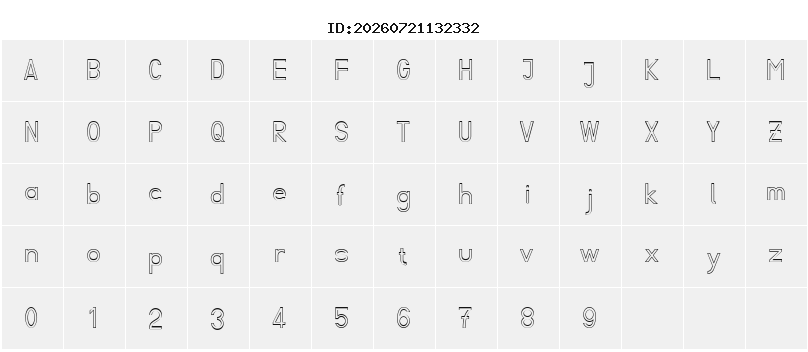
• Font Name: Fibel Sued Kontur
• Designer: Peter Wiegel
About Fibel Sued Kontur.ttf
Fibel Sued Kontur.ttf is a modern, elegant sans-serif font designed for ultimate readability and visual harmony. Perfect for branding, headlines, web design, and print materials.